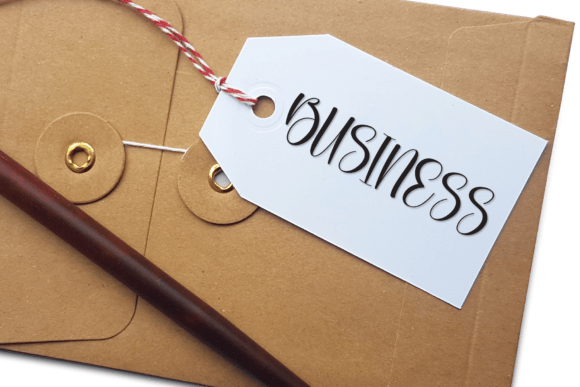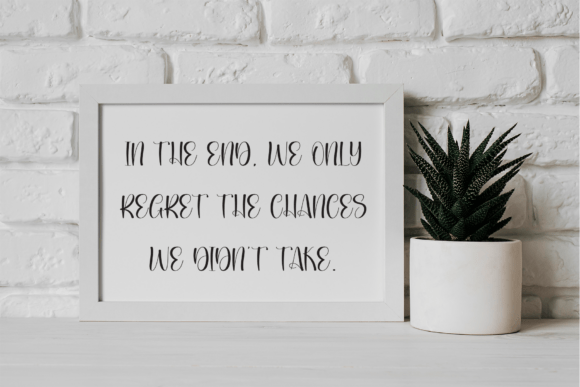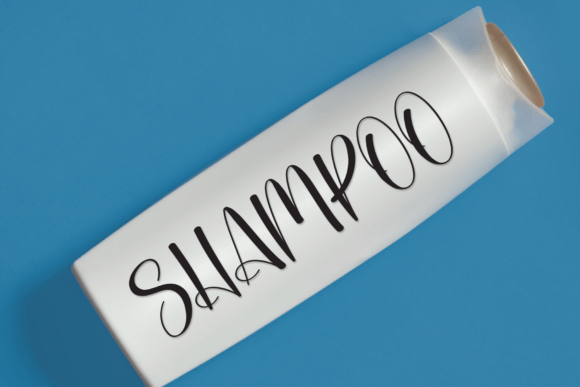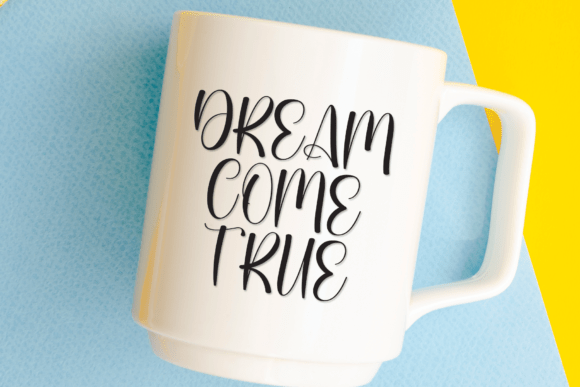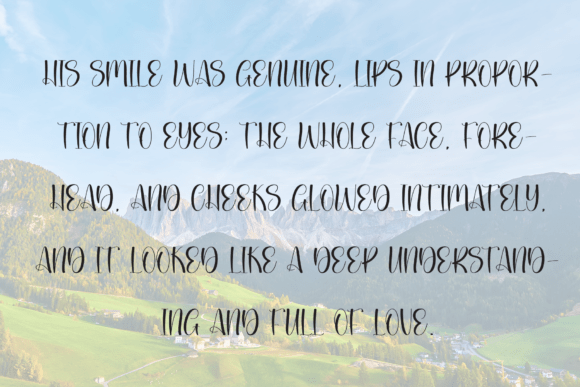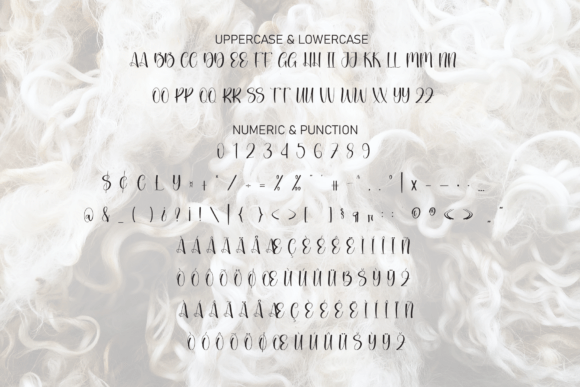
Bulky Font: Elevate Your Designs with Sweet & Friendly
Are you tired of using the same old fonts in your designs? Do you want to add a touch of elegance and whimsy to your projects? Look no further than Sweet & Friendly, a delightful font that brings a personal touch to every letter. In this article, we’ll explore the captivating world of Sweet & Friendly and how it can elevate your designs with its unique charm.
The Charm of Sweet & Friendly
Sweet & Friendly is a beautifully crafted font that exudes warmth and friendliness. Its handwritten style gives every letter a cosy allure that’s reminiscent of a personal message from a loved one. This font is perfect for designers and crafters who want to add a touch of personality to their projects. Whether you’re creating wedding invitations, intimate cards, or social media graphics, Sweet & Friendly is the perfect choice.
Radiant Charm and Endearing Appeal
What sets Sweet & Friendly apart from other fonts is its radiant charm and endearing appeal. This font has a way of making every design feel more approachable and inviting. Its unique charm is sure to capture the hearts of your audience and leave a lasting impression. With Sweet & Friendly, you can add a pinch of joy and heartwarming radiance to your designs, making them truly unforgettable.
Perfect for Wedding Invitations and Intimate Cards
Sweet & Friendly is particularly well-suited for wedding invitations and intimate cards. Its elegant and whimsical style makes it perfect for conveying love and affection. With this font, you can create beautiful and heartfelt designs that will make your clients (or loved ones) feel special. Imagine being able to bring warmth and personality to your wedding invitations or anniversary cards – Sweet & Friendly makes it possible.
Seamless Integration into Your Designs
One of the best things about Sweet & Friendly is how seamlessly it integrates into your designs. Whether you’re working on a digital project or a print design, this font adapts perfectly to any style or theme. Its versatility makes it a valuable addition to any designer’s toolkit. With Sweet & Friendly, you can add a personal touch to your designs without worrying about them looking out of place.
Adding a Spark of Playful Charm to Your Creative Journey
As a designer or crafter, you’re constantly looking for ways to inject creativity and personality into your work. Sweet & Friendly is the perfect way to do just that. With its playful charm and whimsical style, this font is sure to inspire you and bring a fresh perspective to your designs. Whether you’re working on a new project or just want to try something different, Sweet & Friendly is the perfect choice.
Tips for Using Sweet & Friendly in Your Designs
In conclusion, Sweet & Friendly is a truly unique and captivating font that’s sure to elevate your designs. With its radiant charm, endearing appeal, and whimsical style, this font is perfect for designers and crafters who want to add a personal touch to their projects. Whether you’re creating wedding invitations, intimate cards, or social media graphics, Sweet & Friendly is the perfect choice. So why not give it a try and experience the magic of Sweet & Friendly for yourself?
Get Ready to Fall in Love with Sweet & Friendly
Sweet & Friendly is more than just a font – it’s a way to connect with your audience and bring personality to your designs. With its beautiful, handwritten style and whimsical charm, this font is sure to capture hearts and leave a lasting impression. So why wait? Fall in love with Sweet & Friendly today and take your designs to the next level.